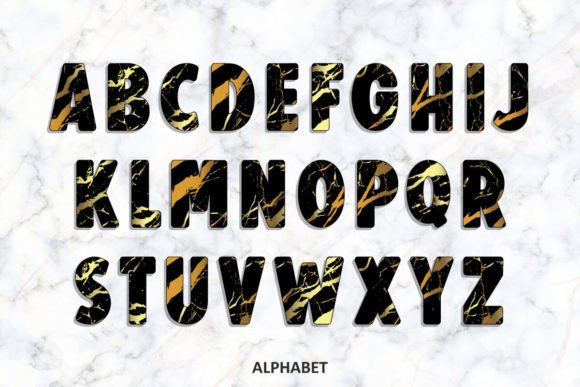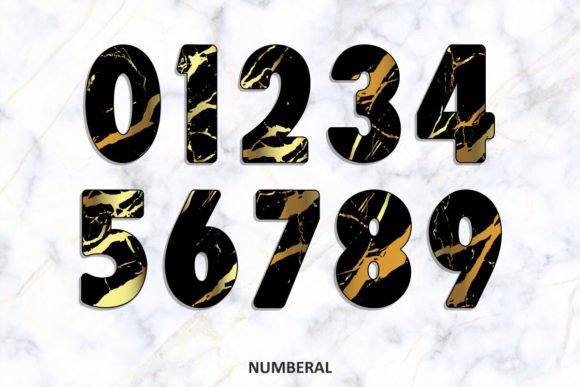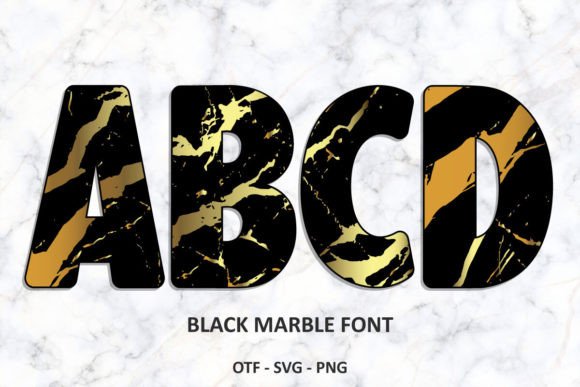
Introducing Black Marble Font: Elevate Your Designs with Elegance and Sophistication
Are you looking for a font that exudes luxury, sophistication, and elegance? Look no further than the Black Marble Font, a stunning alphabet set that combines the majesty of black marble with the allure of golden accents. This versatile font is perfect for a wide range of design projects, from invitations and scrapbooking to websites, blogs, cards, and party decorations.
Unleash Your Creativity with Black Marble Font
The Black Marble Font is a dazzling masterpiece that offers endless possibilities for designers and crafters. Whether you’re creating a wedding invitation, a blog post, or a social media graphic, this font is sure to elevate your design and leave a lasting impression. The font’s sleek and sophisticated design makes it perfect for projects that require a touch of elegance and refinement.
Key Features of Black Marble Font
- Perfect for various design projects: invitations, scrapbooking, websites, blogs, cards, greeting cards, party decorations, and more
Design Possibilities with Black Marble Font
The Black Marble Font offers a world of creative possibilities for designers and crafters. Here are a few ideas to get you started:
- Wedding Invitations: create stunning wedding invitations that set the tone for a luxurious and sophisticated celebration
- Scrapbooking: add a touch of elegance to your scrapbook pages with the Black Marble Font
- Websites and Blogs: elevate your online presence with a font that exudes sophistication and refinement
- Social Media Graphics: create eye-catching social media graphics that stand out from the crowd
- Party Decorations: use the Black Marble Font to create stunning party decorations, including banners, garlands, and more
Tips and Tricks for Working with Black Marble Font
To get the most out of the Black Marble Font, here are a few tips and tricks to keep in mind:
- Experiment with different colors: while the font’s golden accents are stunning, don’t be afraid to experiment with different colors to create a unique look
- Pair with complementary fonts: combine the Black Marble Font with complementary fonts to create a visually appealing design